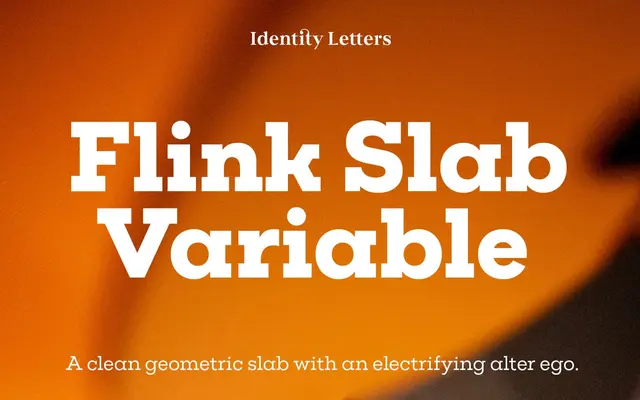
Flink Slab VF
A geometric slab superfamily with unbracketed serifs, available as a variable font with an angular display subfamily inspired by Futurism.
Built to pair directly with Flink Neue, the family shares the same skeleton, vertical metrics and proportions as its geometric sans companion, making the two interchangeable without manual adjustment. The Voltage subfamily introduces angular, almost brutalist letterforms across 54 styles, drawing on the visual language of early 20th-century Futurism. Each font carries over 1,300 glyphs covering small capitals, multiple figure sets, circled and boxed numbers, arrows and thin punctuation for interface and print use.
Unbracketed slab serifs built on a geometric skeleton, explicitly positioned as the slab companion to a geometric sans, placing it firmly in the geometric slab tradition that followed 1920s geometric sans designs.